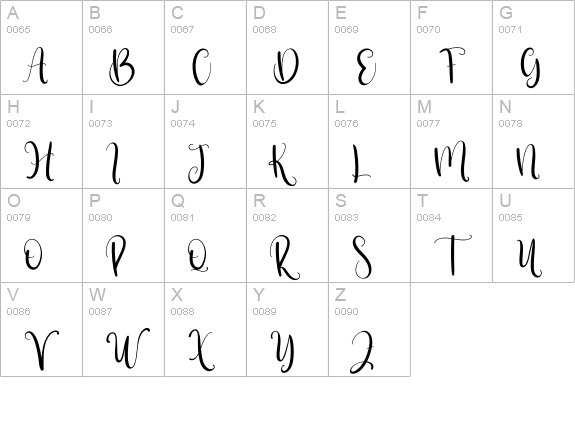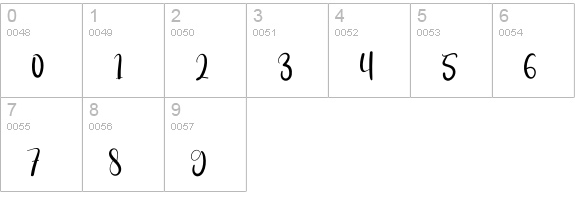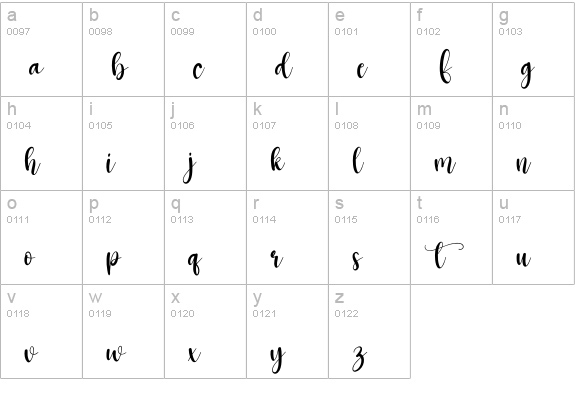
Strong Signature is a free for personal use font in the Script > Handwritten category, designed by scratchones. It has been downloaded 36 times and is available for Windows, Mac and Linux.
Introducing Strong Signature font, a bold and dynamic typeface designed to make a lasting impression. This font exudes strength, confidence, and style with its powerful strokes and elegant curves. Perfect for creating eye-catching headlines, branding materials, and social media graphics.